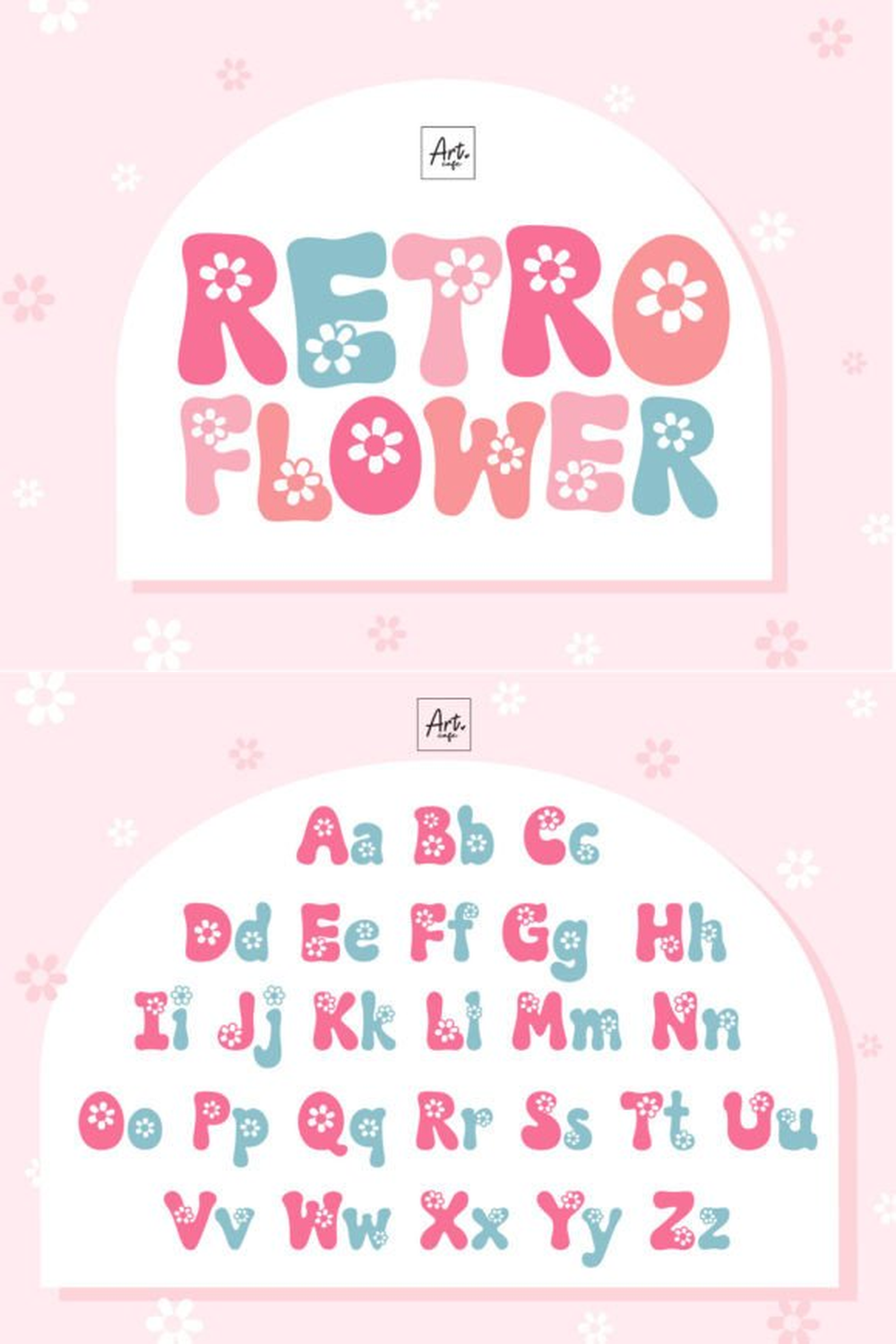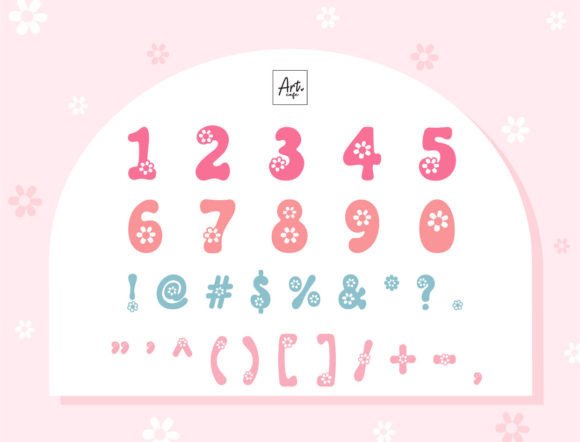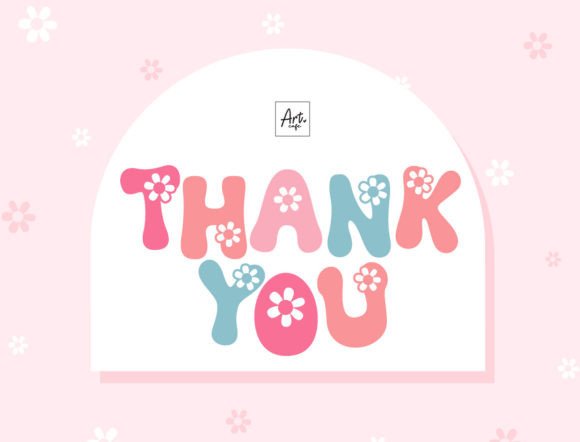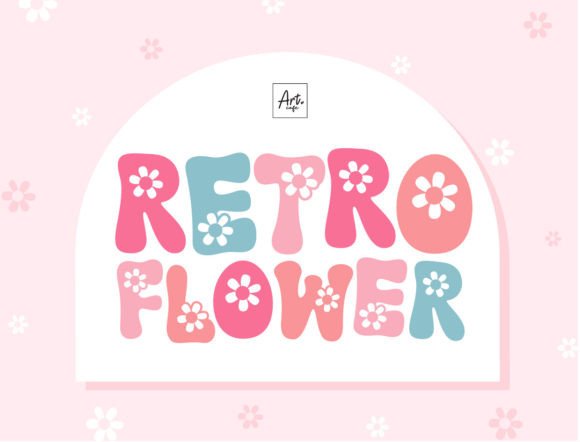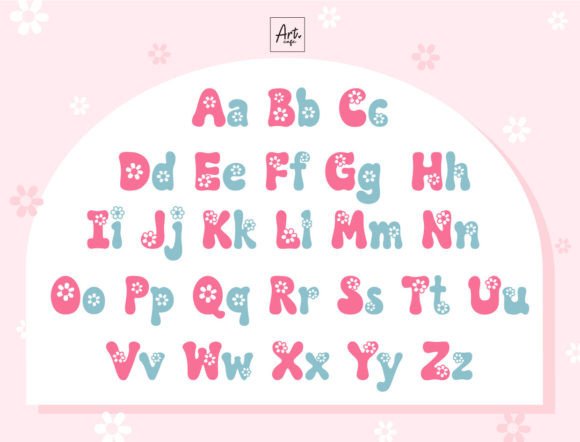
Retro Flower Font
About the Retro Flower Font
Let us introduce you to Retro Flower Font, where timeless design meets modern craftsmanship. Experience the charming allure of the Retro Flower Font, a unique and innovative typeface that delicately intertwines each character with a delightful daisy motif. This font captures the buoyant spirit of Spring, beautifully conveys affection on Mother’s Day, and powerfully underpins Feminist endeavors. Its captivating appeal makes it the ideal choice for children’s creative projects. With the Retro Flower Font, breathe a new floral essence into your headlines and posters, enhancing their look with a tender nostalgia that’s assuredly captivating.